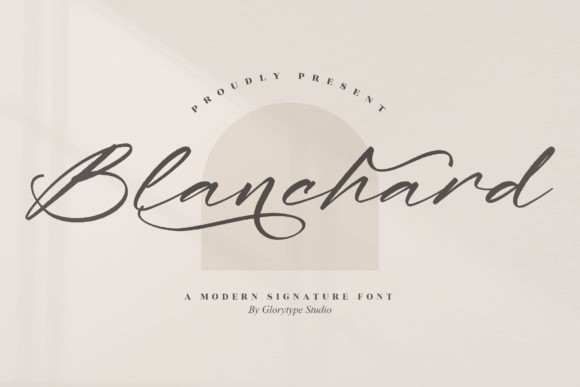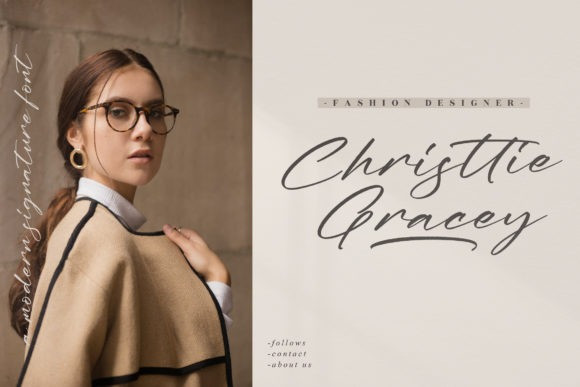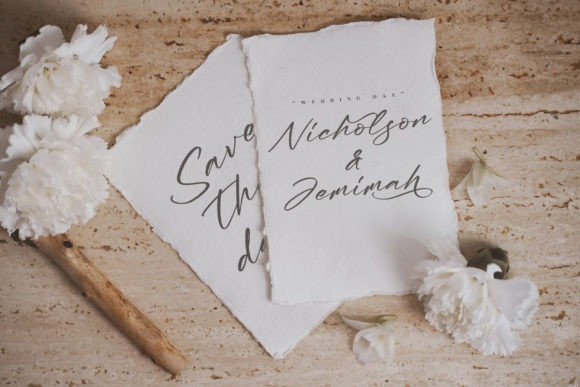
Blanchard Font
Blanchard – Modern Signature Font , from Glorytype Studio, suitable for any projects such as: logos, branding projects, homeware designs, product packaging, mugs, quotes, posters, shopping bags, t-shirts, book covers, name card, invitation cards, greeting cards, label, photography, watermark, special events, and all your other lovely projects that need a beautiful script taste.